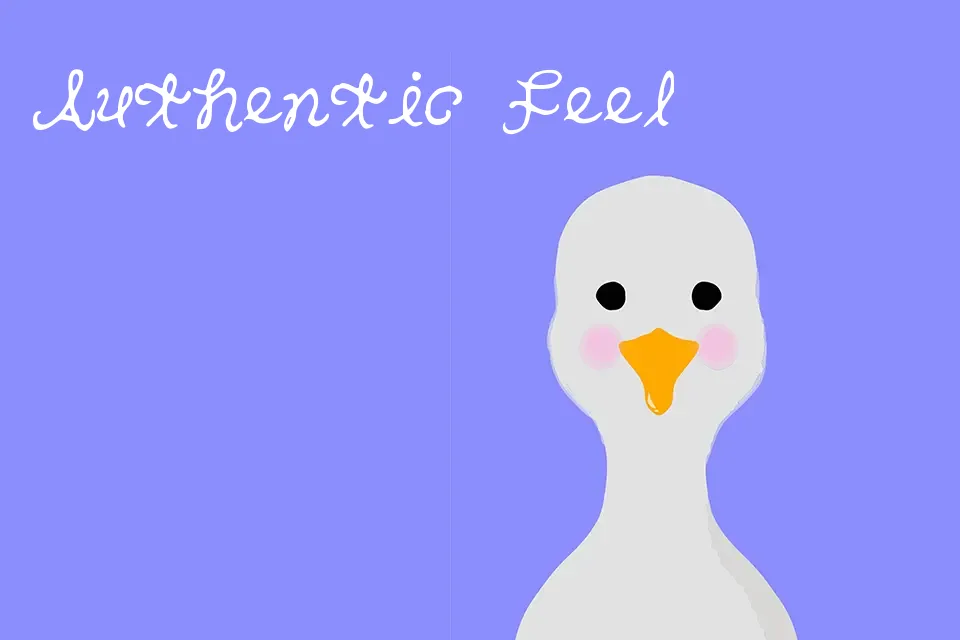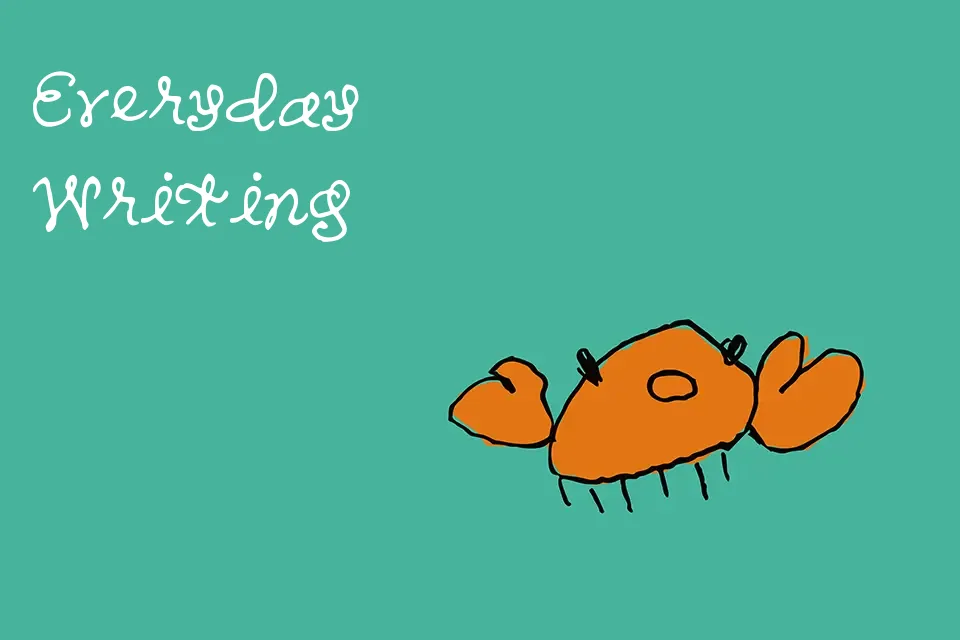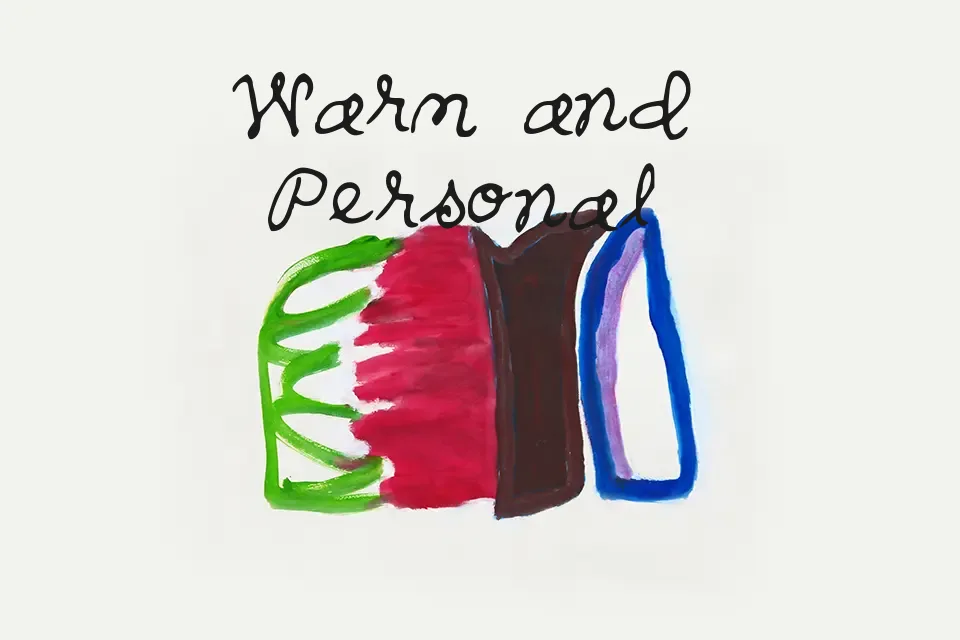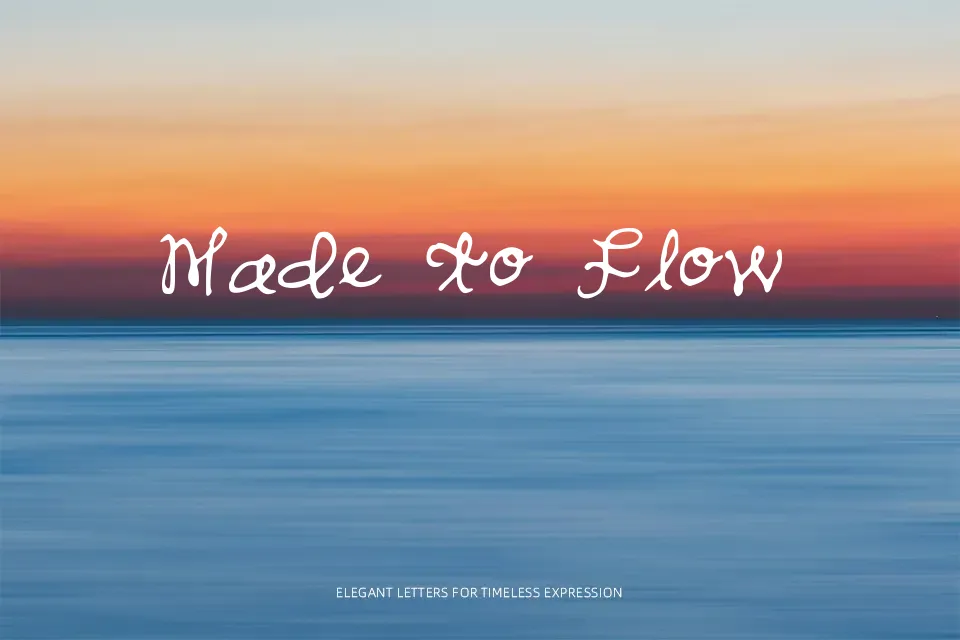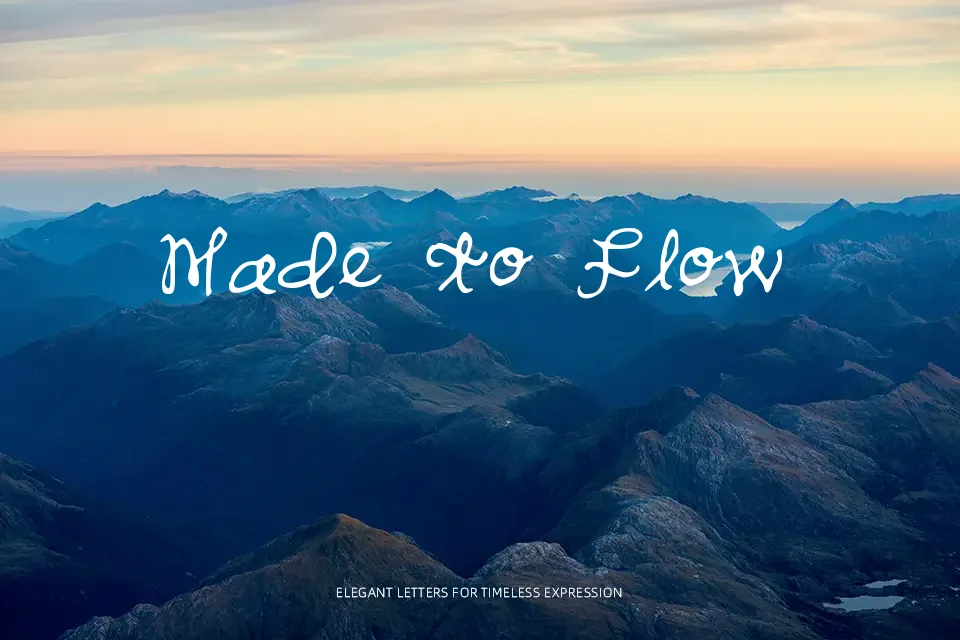
Sanders Hand Font
Designed by brittanelyse
Sanders Hand Font delivers an informal handwritten aesthetic characterized by expressive curled terminals and buoyant letterforms. The typeface maintains consistent monoline stroke weights with open character counters and slightly irregular baseline alignment, creating a spontaneous, handmade rhythm. While the generous internal spacing preserves individual character recognition in short display phrases, dense paragraphs become difficult to read because the ornamental loops clutter close lines of text. The design functions reliably on event invitations, custom gift tags, and lighthearted children’s book titles. Stylistic flourishes lend immediate charm to larger headlines, yet prolonged reading comfort diminishes significantly when scaled down to small caption sizes.
Best For: greeting card headlines, party invitation titles, craft product packaging, casual merchandise tags
Not Ideal For: dense editorial body text, corporate legal contracts, technical manuals, small interface captions
Perfect for headline, invitation, and kids, with a creative and decorative style.